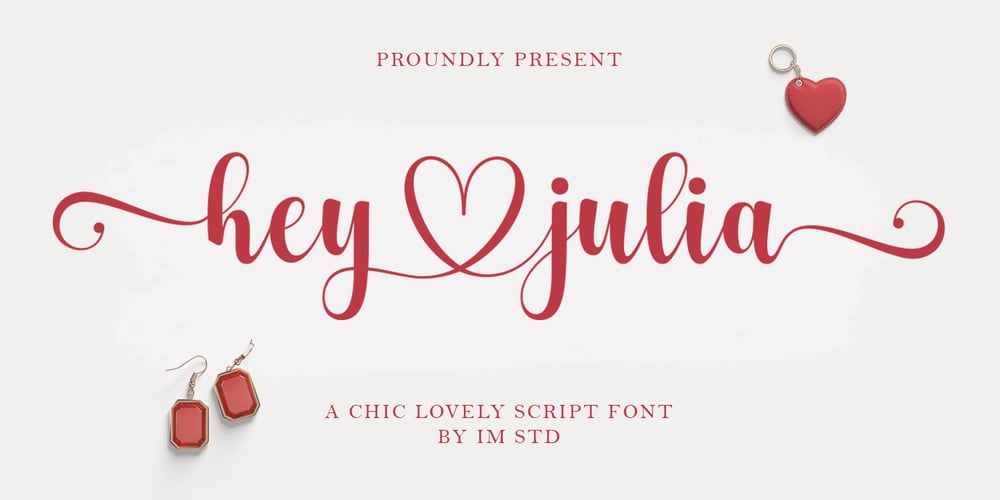
Hey Julia Font Family was designed by Ikhsan Maulana and published by IM Studio. Hey Julia contains 1 styles and family package options. Hey Julia Script is an elegant and flowing handwritten font. This is a PUA code which means you can access all the glyphs and sweeps easily! It features varied baselines, smooth lines, gorgeous glyphs and stunning alternatives.The font comes with upper and lower case letters, numbers, punctuation, support for languages, swashes and ligatures.Hey Julia Script It maintains a classy calligraphic influence while feeling contemporary and fresh. Fall in love with this font and take your project to the highest level!Thank you for visiting our store, hope you like it ๐